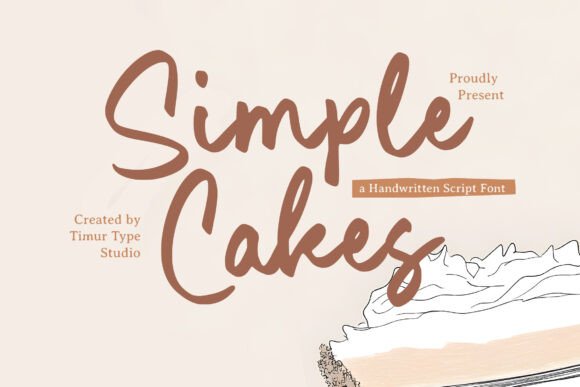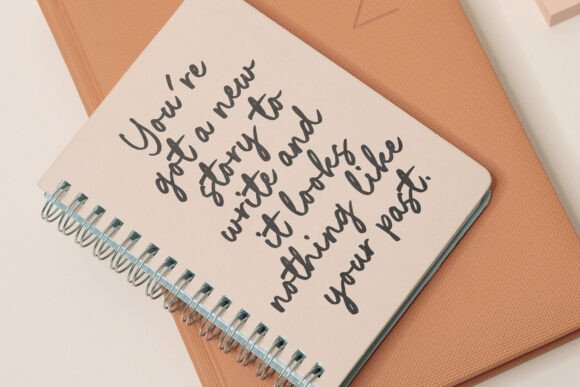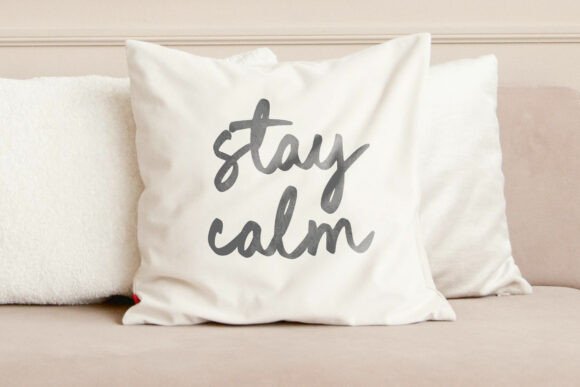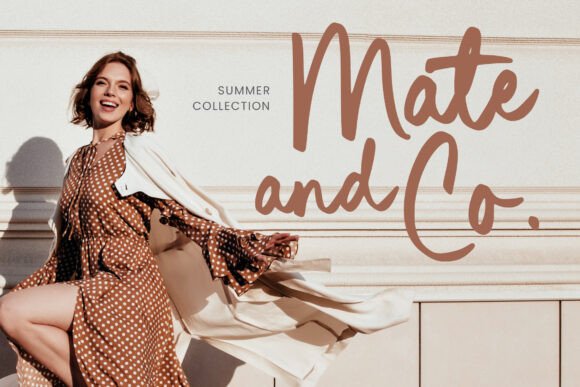
Simple Cakes Font: A Cute Handwritten Script for Invitations & Branding
About the Simple Cakes Font
Get ready to be inspired by Simple Cakes Font, a fresh and dynamic typeface for modern creators. Simple Cakes
is a charming handwritten script font with a playful and whimsical style. Its smooth curves and natural flow make it perfect for invitations, branding, and creative projects that require a touch of warmth.
Simple Cakes Font Usage Examples
Simple Cakes Font Example